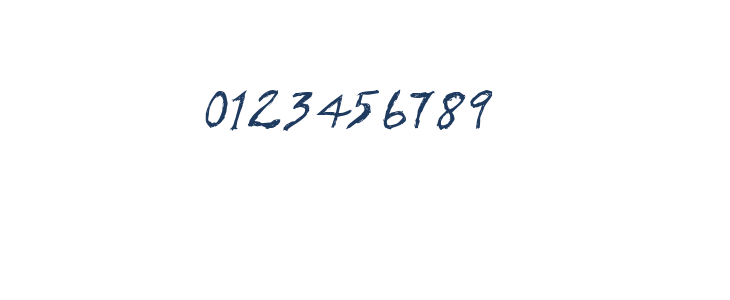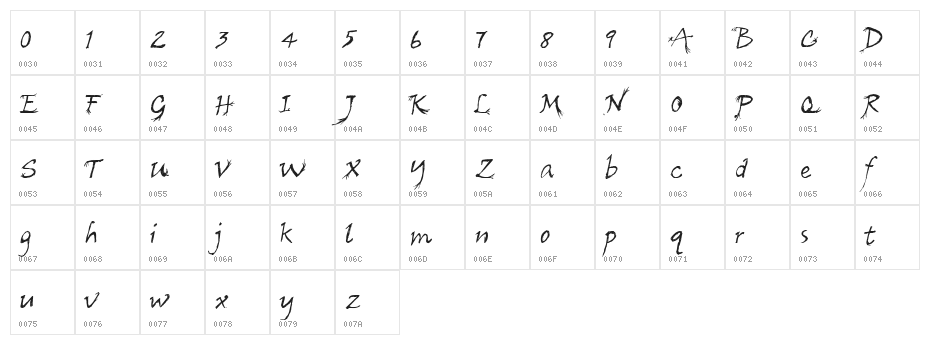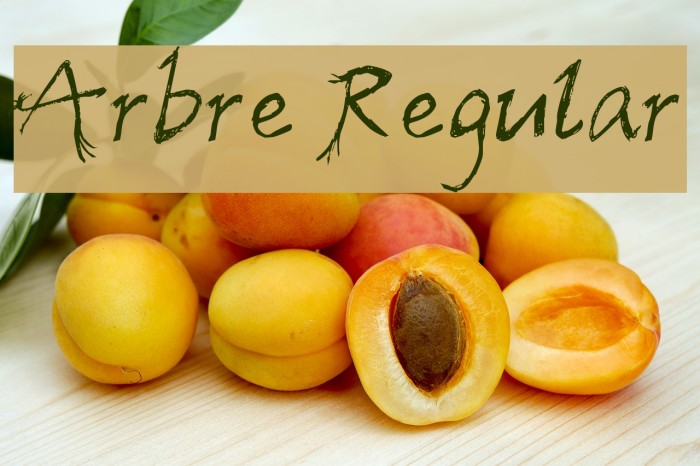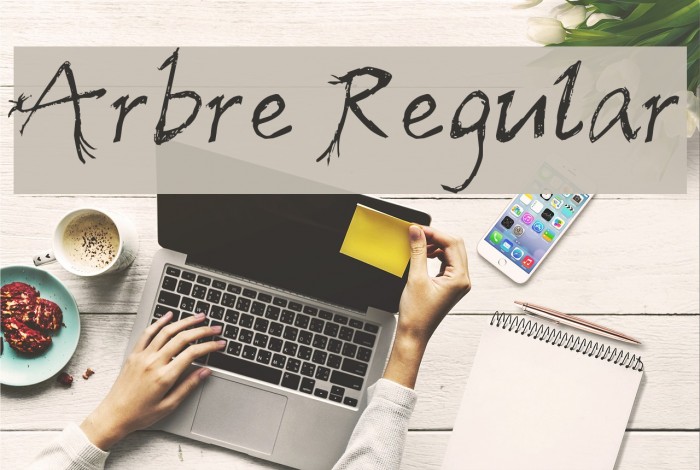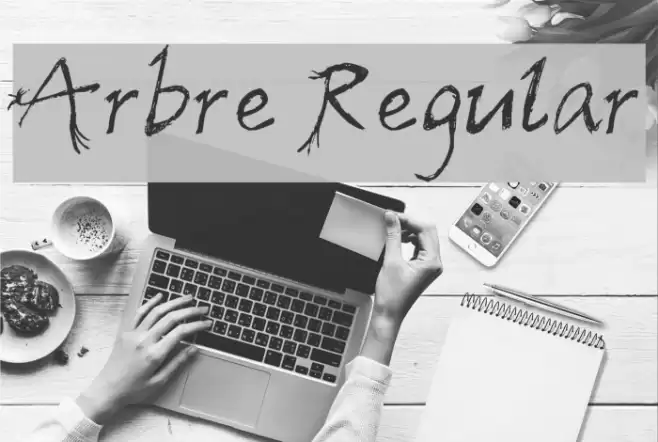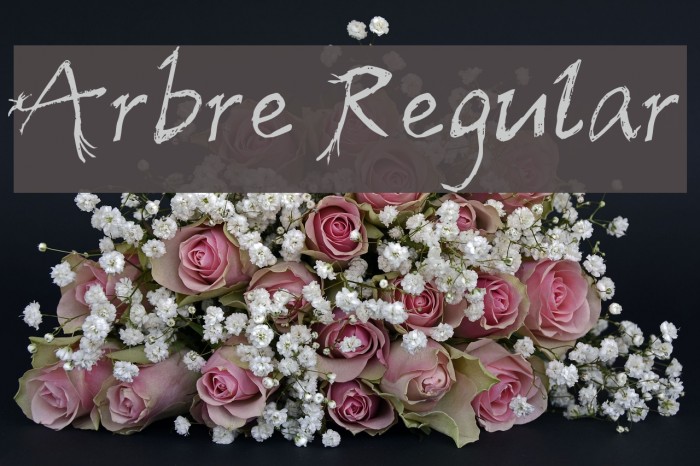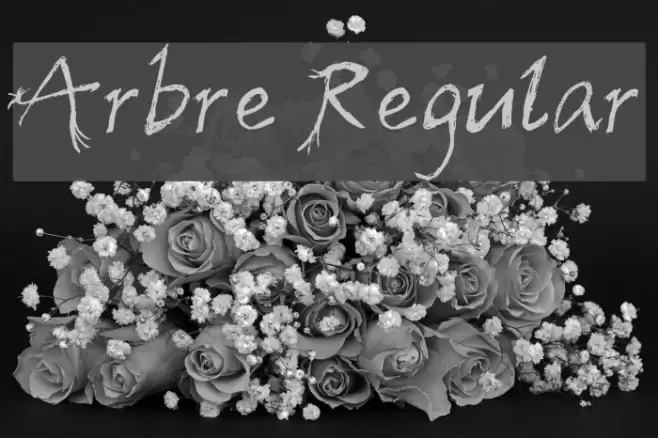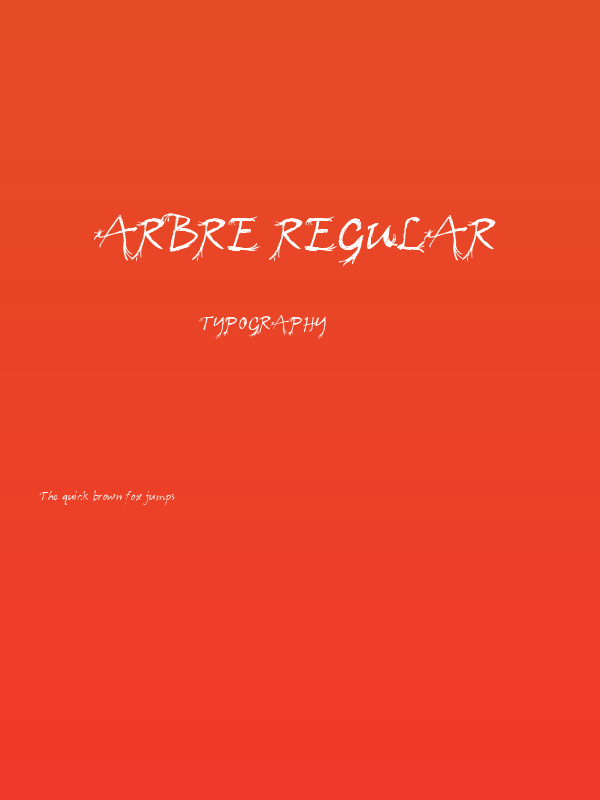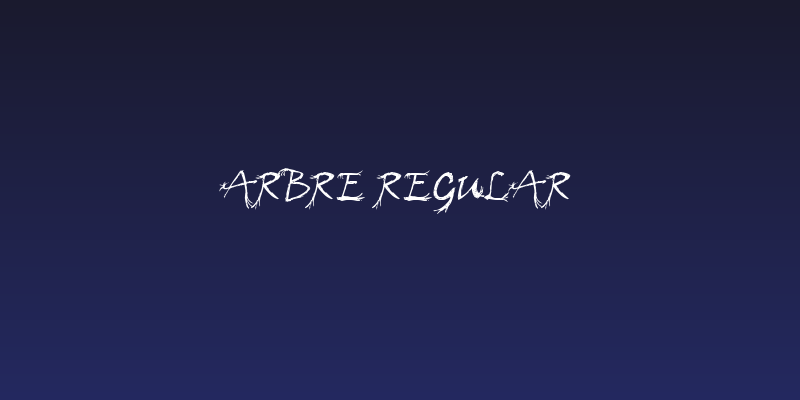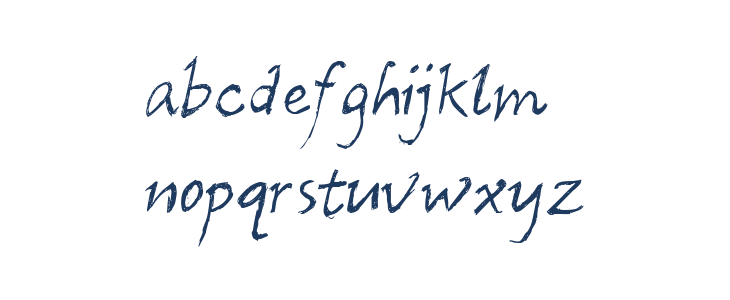
Arbre Regular Font
Arbre Regular Description
This font features a unique, organic design that mimics the appearance of tree branches or roots. Each character is adorned with intricate, jagged edges and extensions, giving it a wild and natural aesthetic. The strokes vary in thickness, adding to the font's dynamic and rustic feel. The uppercase letters are bold and commanding, while the lowercase letters maintain a consistent style, offering a cohesive look. Numbers and special characters follow the same design principles, ensuring uniformity across all glyphs. This font's distinctive style makes it stand out, perfect for projects that require an earthy or nature-inspired theme.
| Proposed Projects | Ideal for eco-friendly branding, nature-themed posters, book covers, or environmental campaigns. |